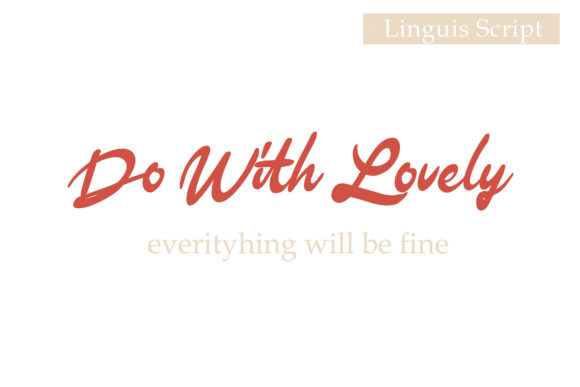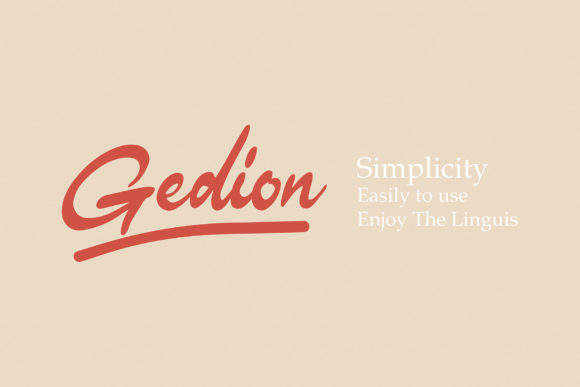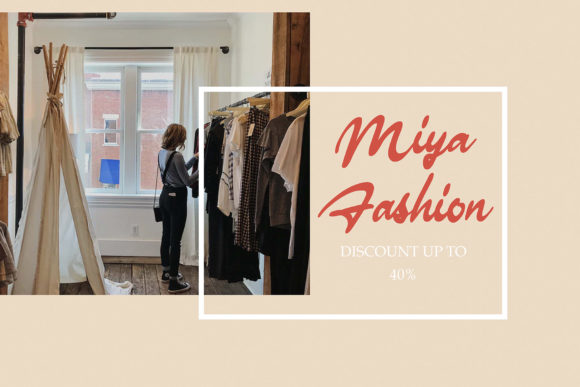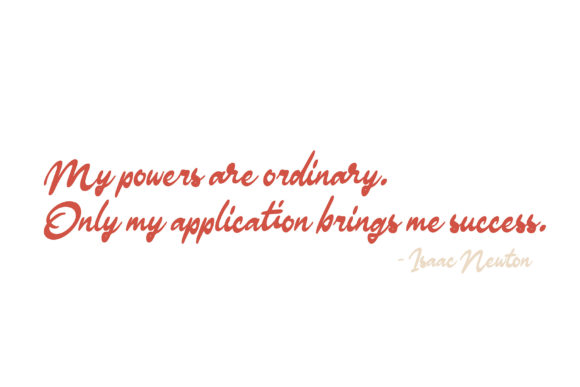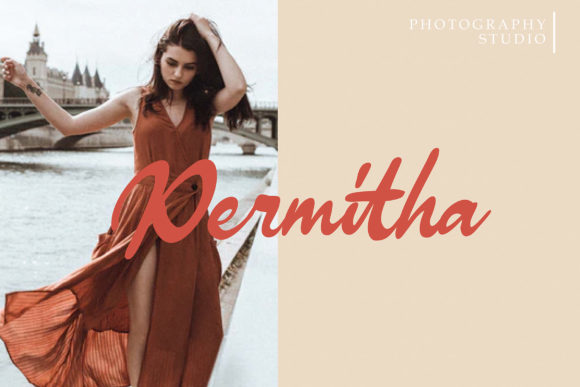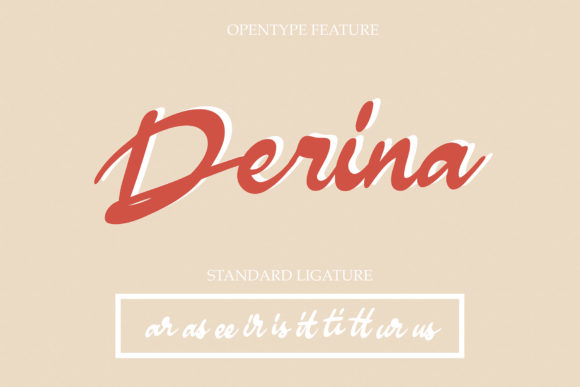
Introduction to Linguis Font
Linguis is a stylish, adept and flowing script font.
It looks lovely on invitations, thank you cards, quotes, greeting cards, logos, business cards and much more .
Key Features of Linguis Font
Why Choose Linguis Font?
Linguis Font offers exceptional quality and versatility, making it a valuable addition to your design toolkit. Whether you’re creating for personal projects or commercial use, Linguis Font delivers professional results.